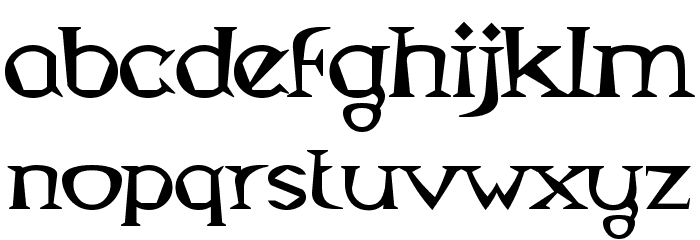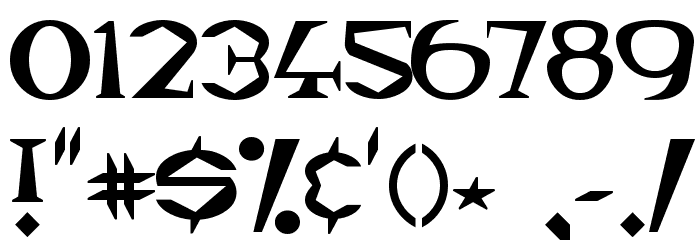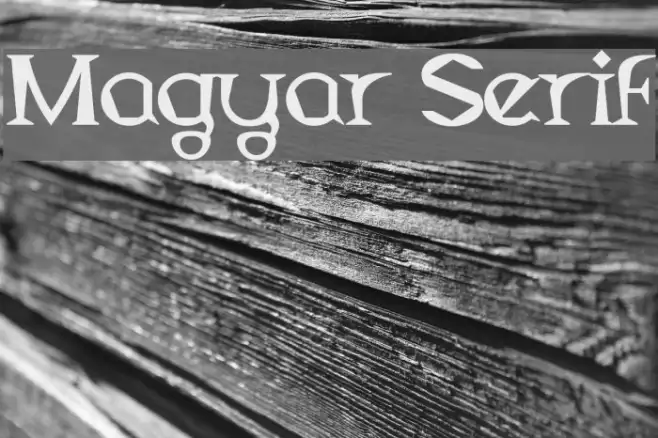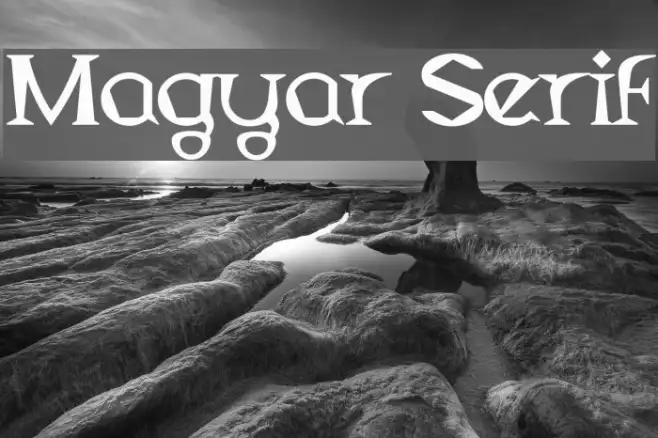
Magyar Serif Font
This font exhibits a unique and bold style with sharp, angular serifs and a distinct medieval influence. The uppercase letters are characterized by their strong, geometric forms, while the lowercase letters maintain a consistent style with slightly softer curves. The numerals are bold and prominent, featuring a similar angular design. Special characters are creatively designed, adding to the font's decorative appeal. The overall appearance is striking and memorable, making it suitable for projects that require a touch of historical or fantasy elements.
A bold, angular serif font with a medieval flair.
- Proposed Projects: Ideal for fantasy-themed designs, historical book covers, or branding that requires a distinctive, old-world charm.